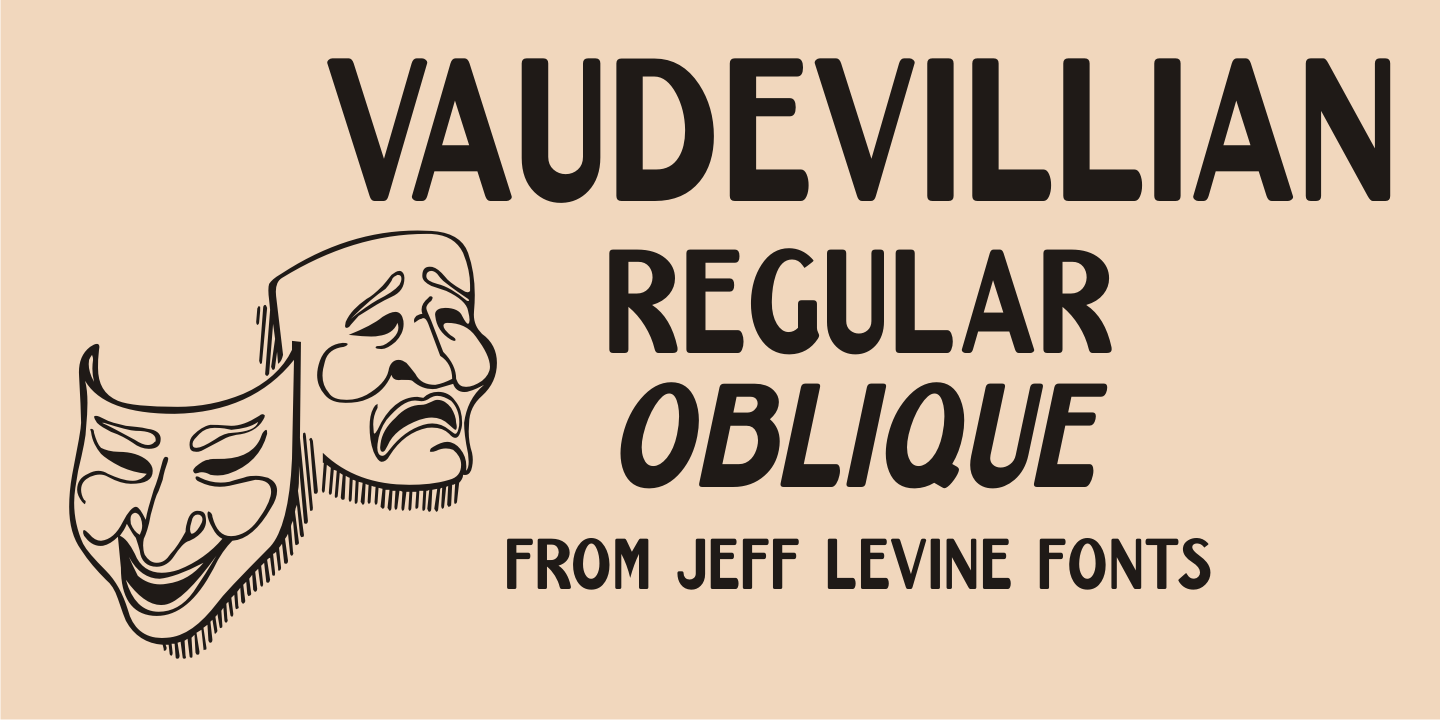
Vaudevillian
The place for a family to be entertained by comedians, dancers, acrobats, animal acts, singers and just about any other acts that fit the bill at the time was the vaudeville theater.
Prior to radio becoming the major source of entertainment for the American public, popular songs were introduced on the stages of these entertainment venues.
One such song from 1916 with a World War I patriotic sentiment was 'A Yankee Doodle Boy Is Good Enough for Me'. The sheet music featured the title hand lettered in Art Nouveau style.
This became the design source for Vaudevillian JNL, available in both regular and oblique versions.